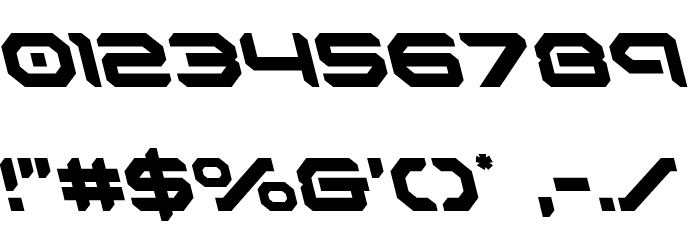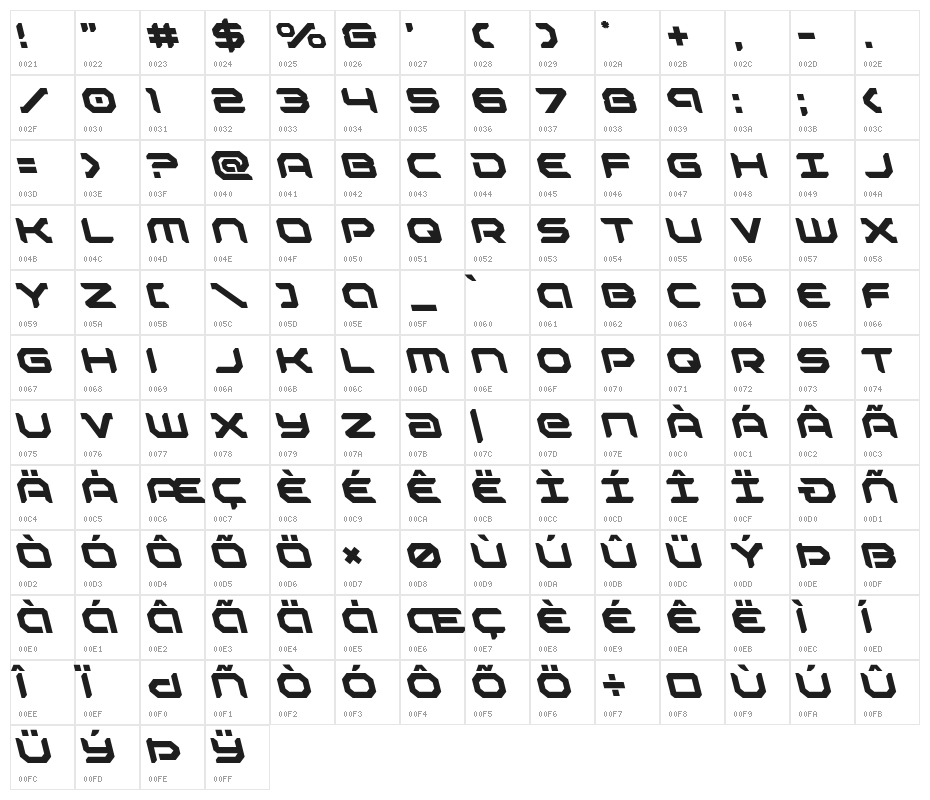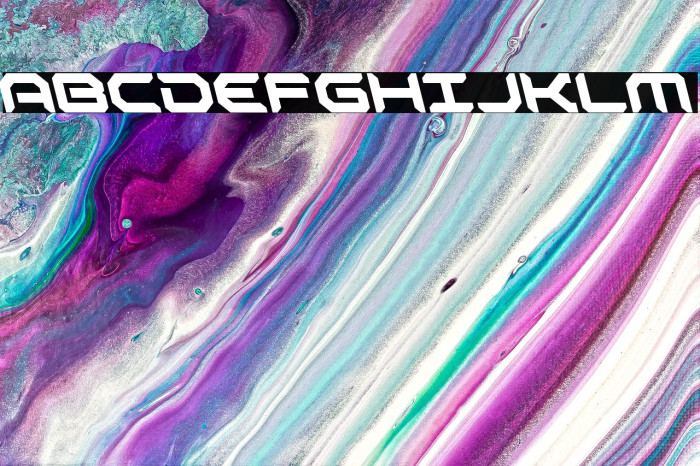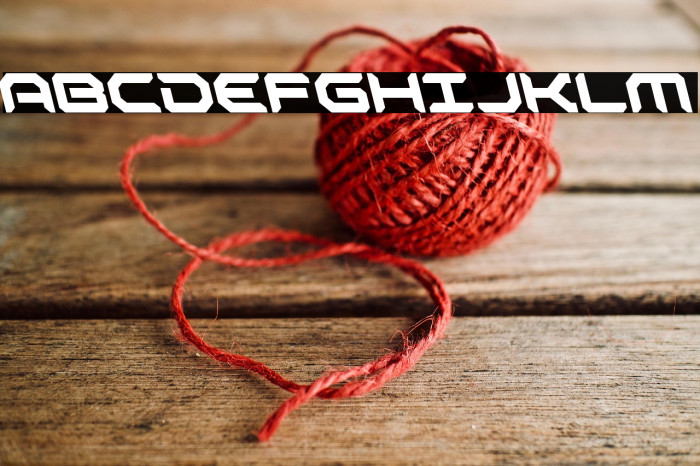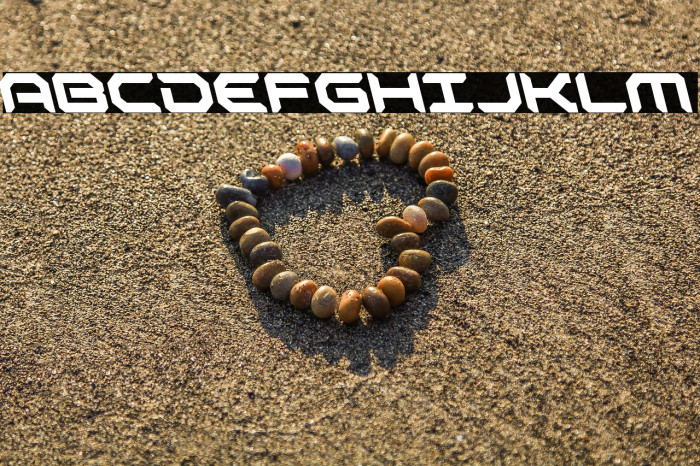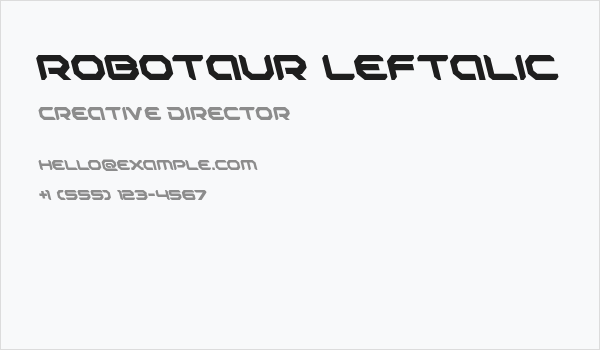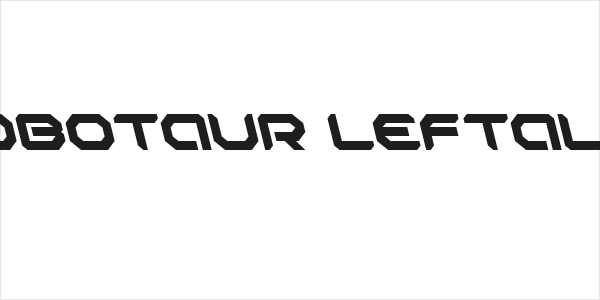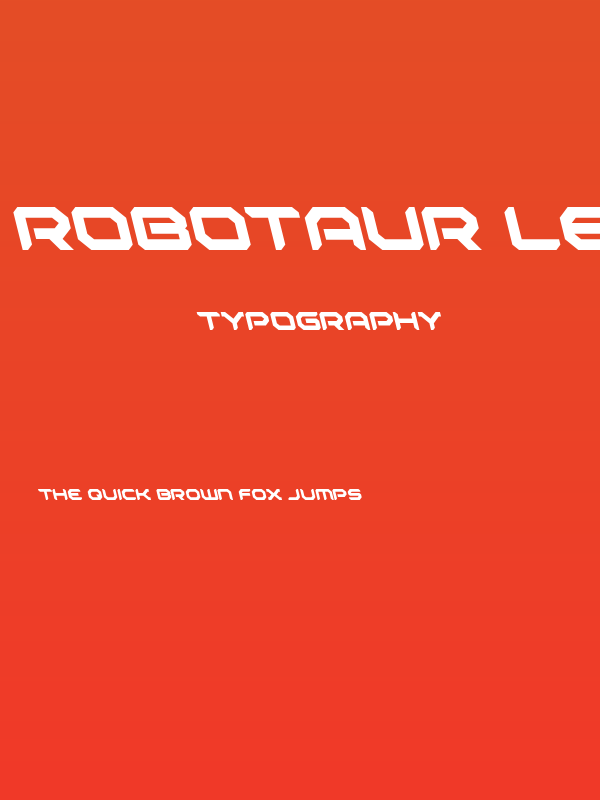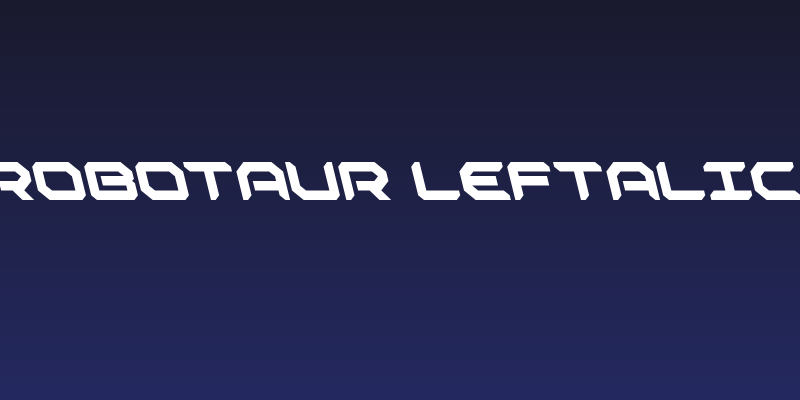
Robotaur Leftalic Font
Robotaur Leftalic Description
This font features a futuristic and angular design, characterized by its bold and geometric letterforms. Each character is constructed with sharp edges and a consistent thickness, giving it a mechanical and robotic appearance. The style is distinctly modern, with a slight slant that adds a dynamic and forward-moving feel. The uppercase and lowercase letters maintain a uniformity that enhances readability, while the numerals and special characters are crafted to match the overall aesthetic. This font is ideal for projects that require a strong, tech-inspired look.